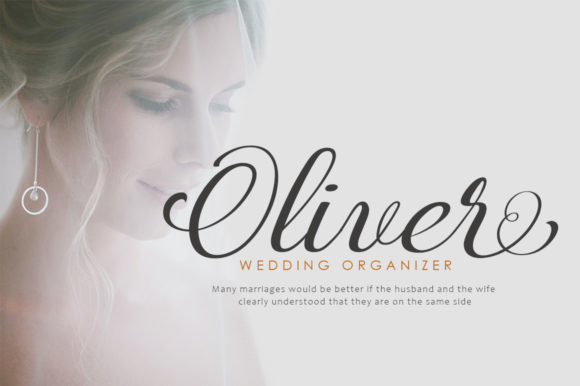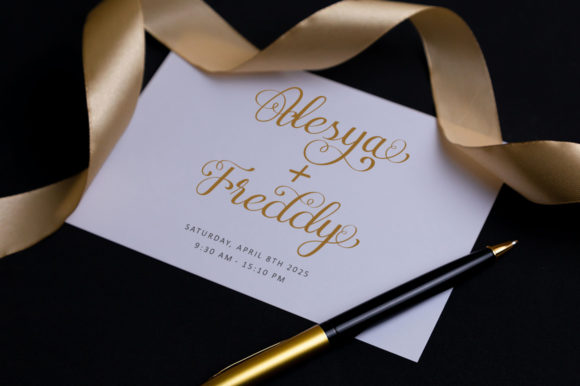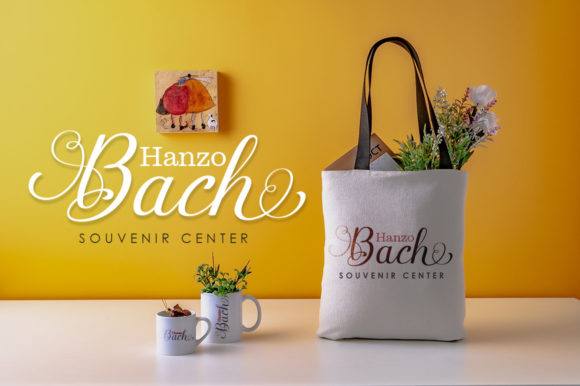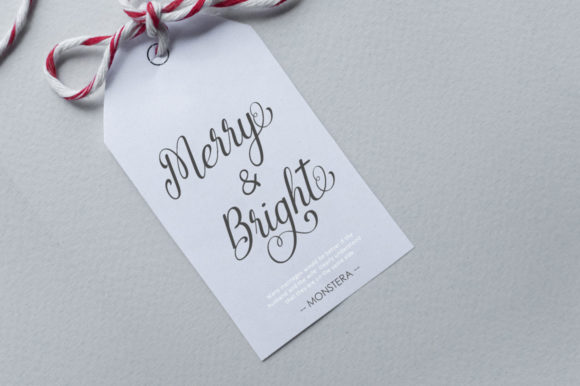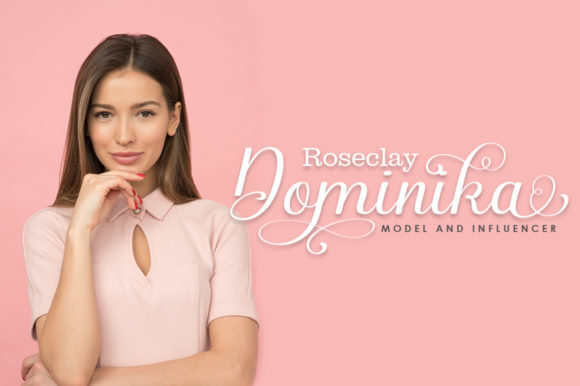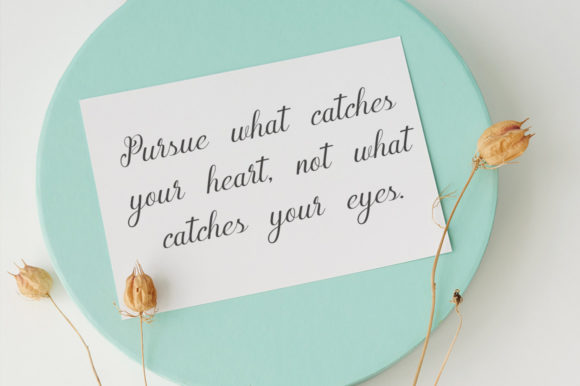
Introduction to Geshya Font
You know that moment when you’re working on a creative project, and you just can’t seem to find the right font to give it that extra oomph? For designers, it’s like searching for a needle in a haystack – until you stumble upon the perfect design resource. That’s exactly what we’re excited to share with you today: the ravishing and highly detailed Geshya Font.
This stunning script font is the perfect addition to any design project, adding a fashionable spark that’s sure to leave a lasting impression. With its intricate details and stylish flair, Geshya Font is the ultimate game-changer for designers looking to elevate their work. Plus, with its transparent background and PUA encoded design, you can access all of the amazing glyphs and ligatures with ease – no fuss, no muss!
Key Features of Geshya Font
- Unique, hand-drawn design with a touch of elegance, perfect for creative projects and designs that require a personal touch.
- High-quality font with transparent background, allowing for seamless integration with various design resources and backgrounds.
- Designed for use in a variety of design applications, including logos, branding, and digital art, making it a valuable design resource.
- Available in a range of weights and styles, allowing for versatility and customization in creative projects.
- Perfect for designers and artists looking for a high-quality, unique font to elevate their designs and stand out from the crowd.
Honest Review: Geshya Font
As a designer, I’m always on the lookout for high-quality design resources to elevate my creative projects. Recently, I had the chance to work with the Geshya Font, and I must say it’s been a game-changer.
Here are some things that work well: ✨ The Geshya Font offers a wide range of styles and weights, making it incredibly versatile for any design project. The font is also highly customizable, allowing me to tweak it to fit my specific needs. Additionally, the free download option is a huge plus, as it saves me money and gives me more flexibility to experiment with different design concepts.
One thing to note is that the Geshya Font doesn’t always work well with transparent backgrounds. ⚠️ In some cases, the font can appear to be cut off or distorted when used with a transparent layer. However, this is a relatively minor issue, and I’ve found that it’s easy to work around with a bit of tweaking.
Overall, I’m really impressed with the Geshya Font. It’s a high-quality design resource that has opened up a world of creative possibilities for me. Whether I’m working on a branding project or a web design, the Geshya Font is always a reliable choice.
- Wide range of styles and weights
Tips for Getting the Most Out of Geshya Font
When using Geshya Font, consider pairing it with a transparent background to create a clean and modern look. You can also experiment with different font sizes and colors to add depth and visual interest to your design. Additionally, be sure to download the font from a reputable source to ensure high-quality results.
The Geshya Font is a versatile design resource that can be used in a variety of creative projects, including logos, business cards, and social media graphics. It’s also a great choice for presentations, reports, and documents where a touch of sophistication is needed.